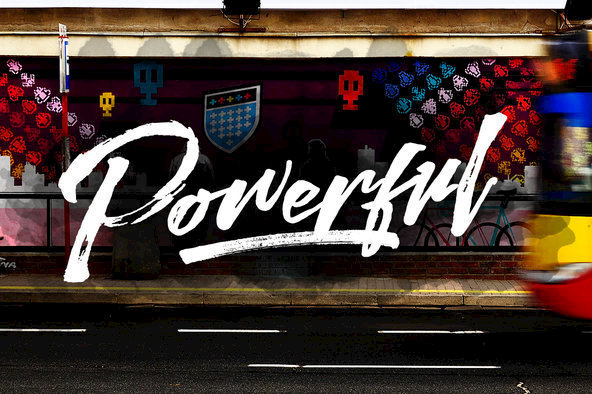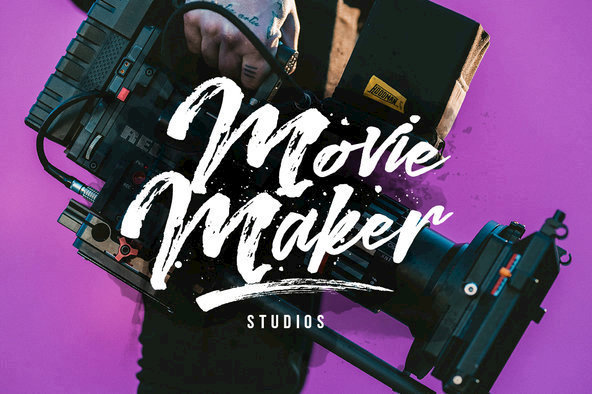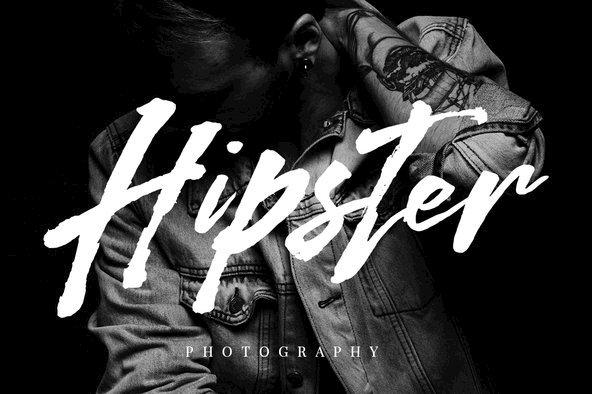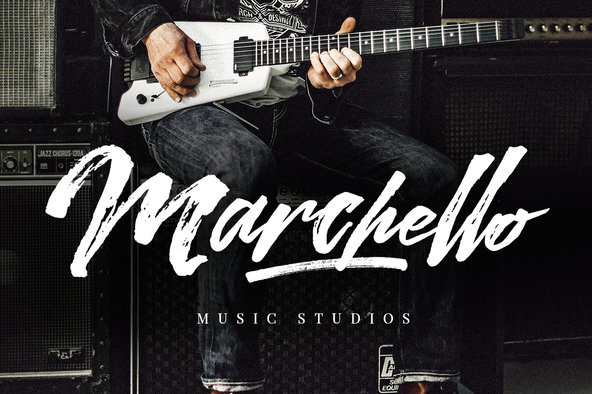
Kreakers Font
With its hand-brushed style, Kreakers exudes a unique charm marked by authentic dry brush imperfections. This textured font provides a stylish appeal perfect for logotypes and various creative endeavors. It offers versatility that is ideal for posters, digital lettering art, and clean design applications.Kreakers: Hand-Brushed Typeface with Dry Brush Imperfections
Kreakers is your go-to option for creating impactful branding designs, signage, merchandise, and engaging social media posts.